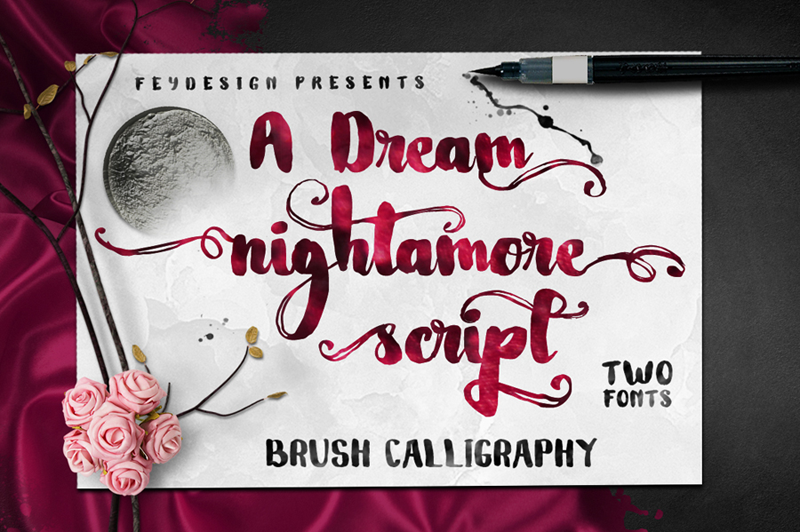
Font name: | Nightamore |
Author: | fey design |
Note by fey design | |
This is Handrawn Brush Font, Modern Vintage Calligraphy style, Suitable for design, element design, wedding, event, t-shirt, logo, badges, sticker, and awesome work, etc... |